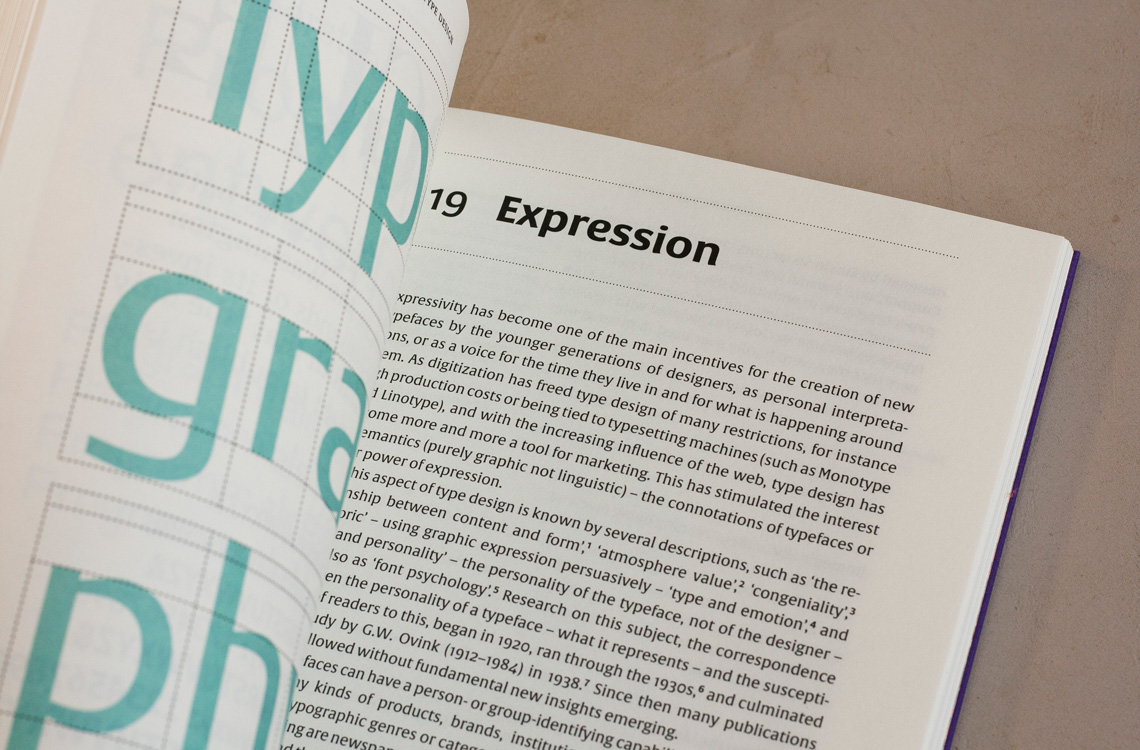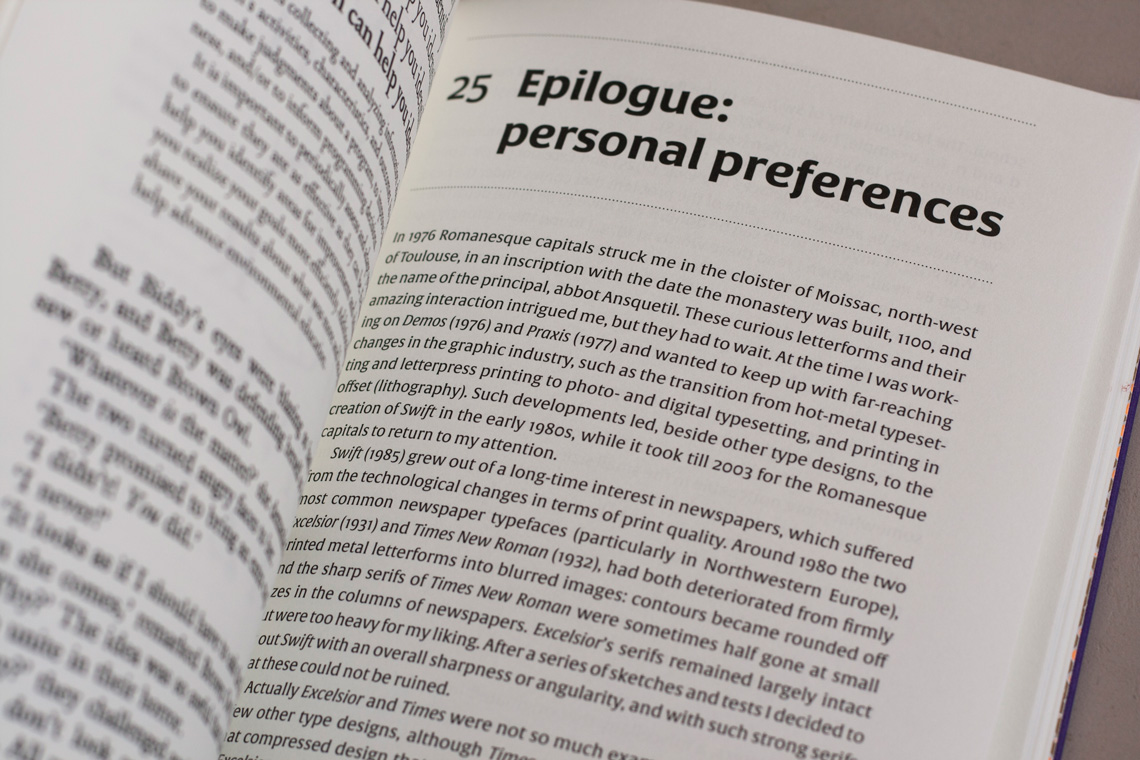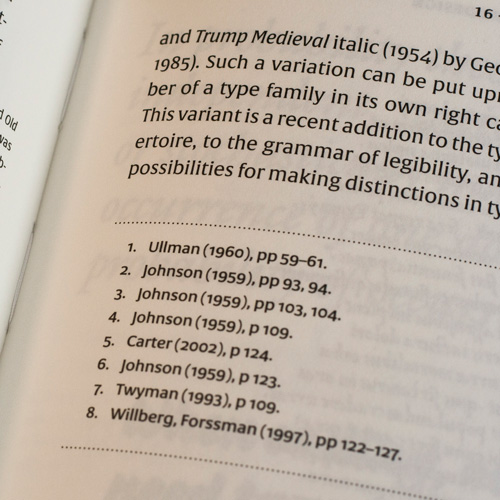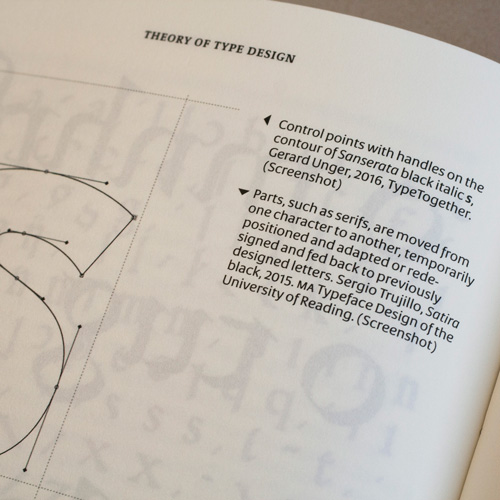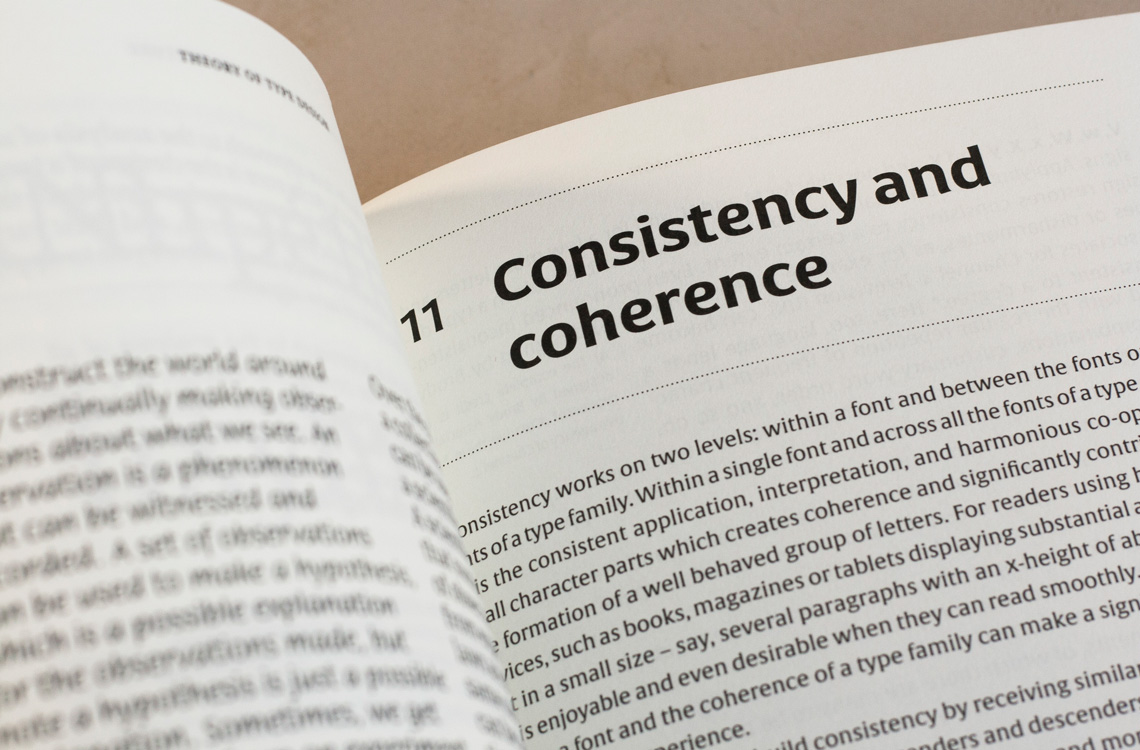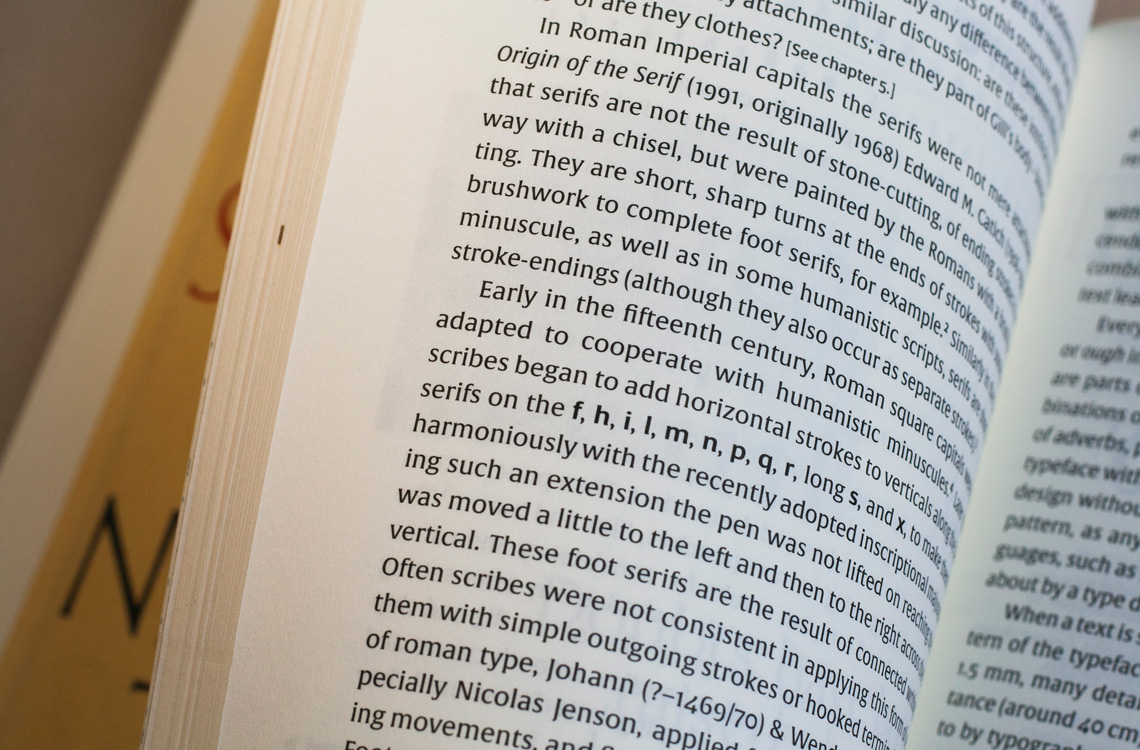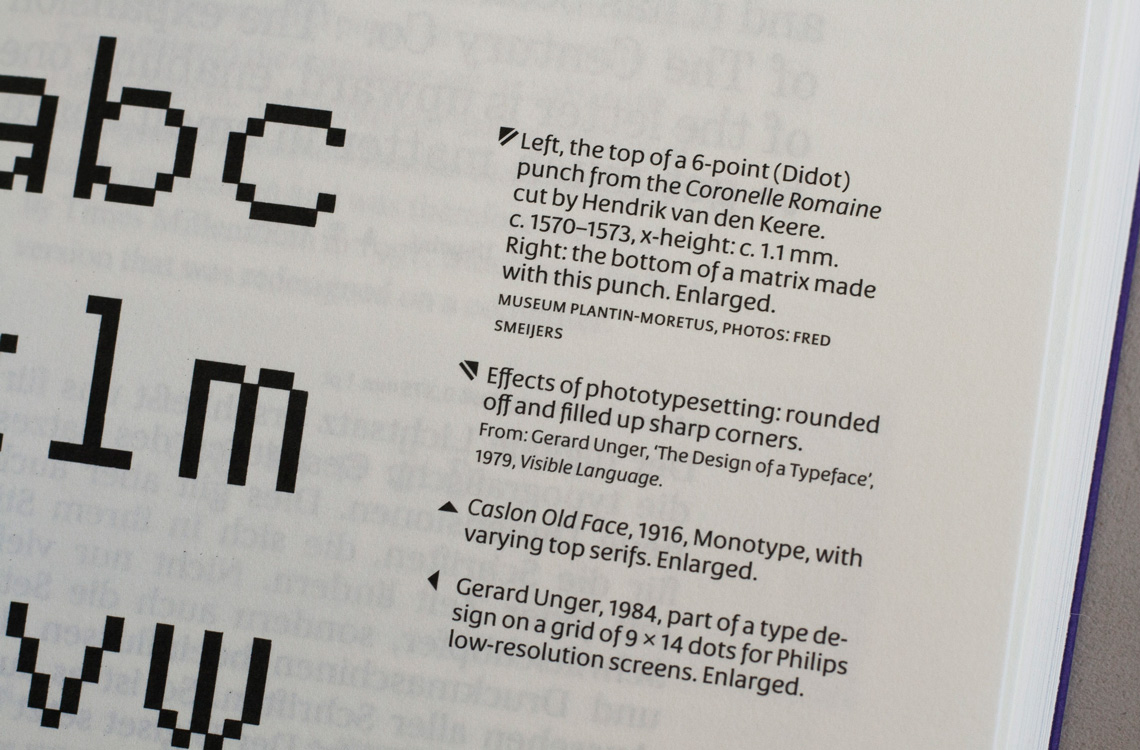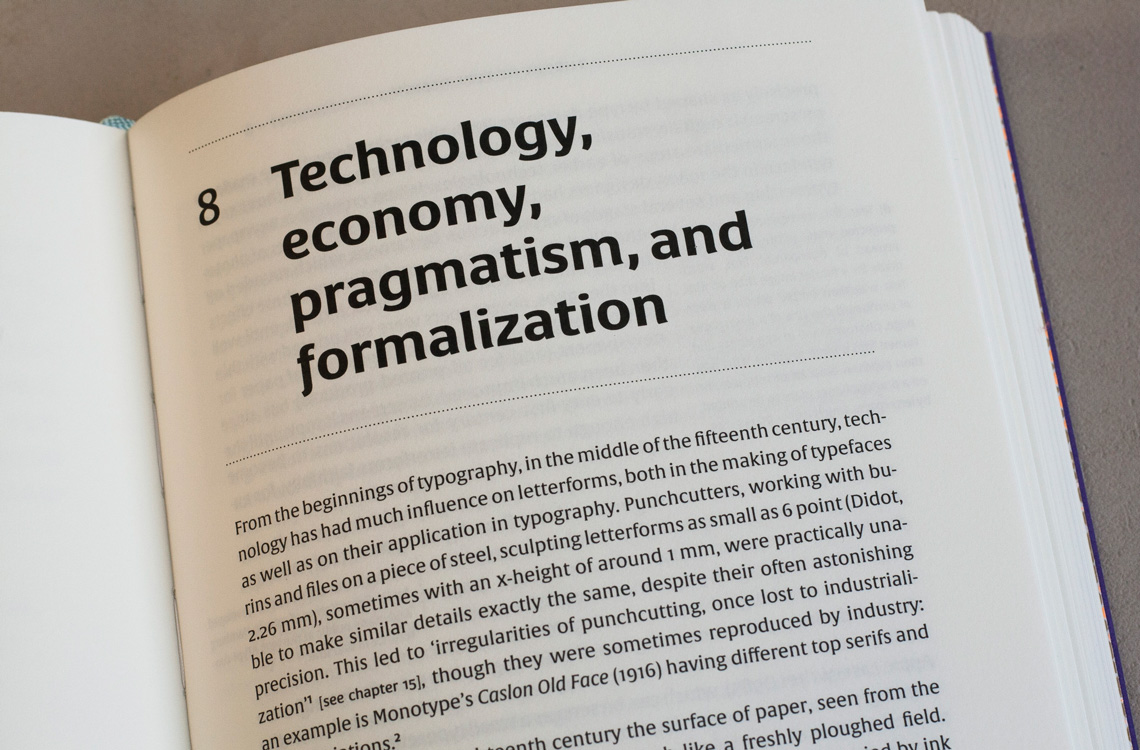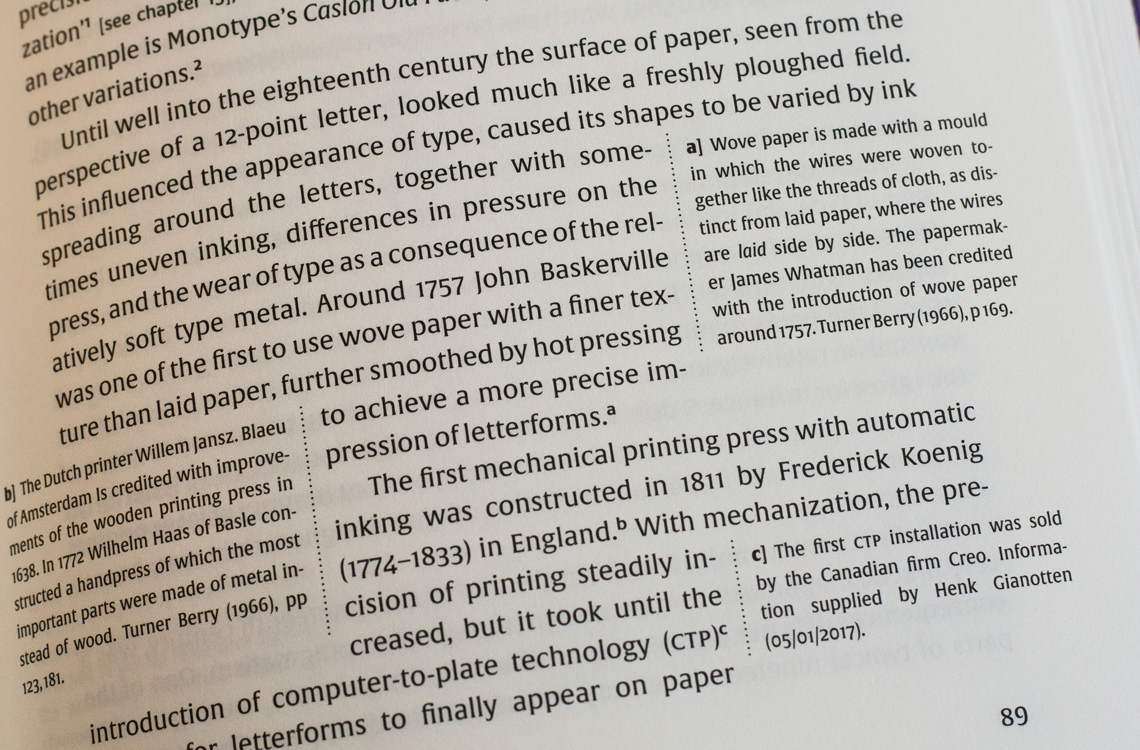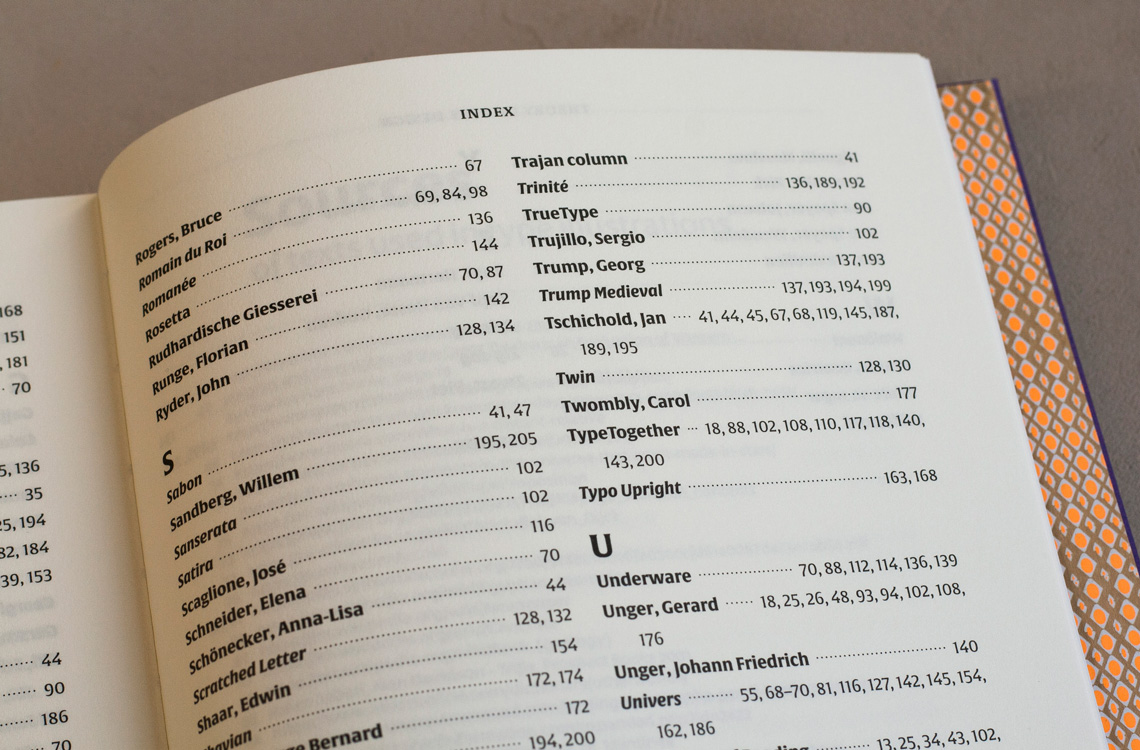
Alverata and Sanserata in Theory of type design
Dutch designer Hansje van Halem chose — unsurprisingly so — Dr Unger’s latest type design families Alverata and Sanserata to set Unger’s latest book ‘Theory of Type Design’.
After ‘While You’re Reading’, a book discussing legibility and readability from a typographer’s perspective, Dr Gerard Unger’s latest accomplishment is this comprehensive text on the theory of typeface design, published by nai010 in the Netherlands. It is the first book of its kind that addresses the practice of type design from a reflective research-heavy point of view. Unger’s book is a long overdue perspective that fills a gap in the formal education of type creation and forms a valuable introduction to conceptual aspects of the craft, such as language influence, cultural connotations, conventions, and technological advancements.
As with his previous book, ‘Theory of Type Design’ is set using Unger’s own typefaces. Here the type system Alverata & Sanserata come into play, both of which are contemporary, eclectic designs drawing inspiration from the Romanesque period in Europe. All body text is set in Alverata, intended for continuous reading, while Sanserata, the serif-less counterpart, appears in titles, footnotes, and reference lists.